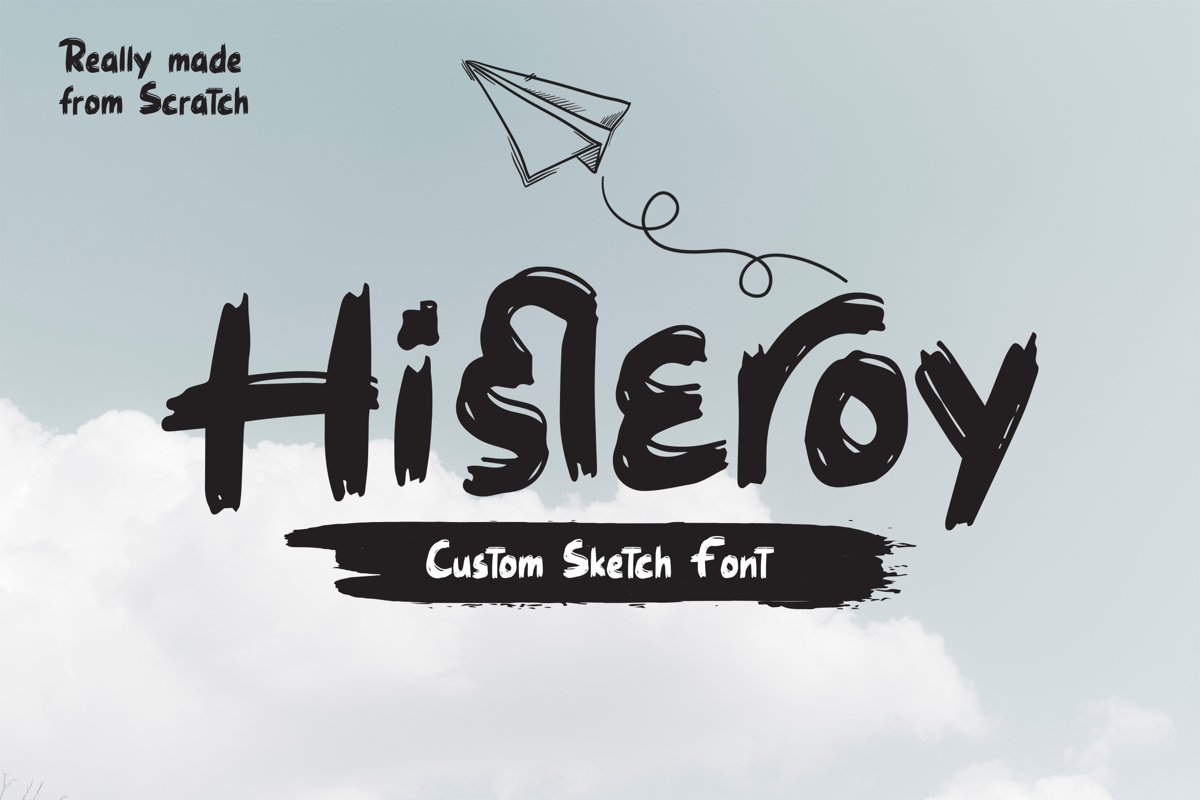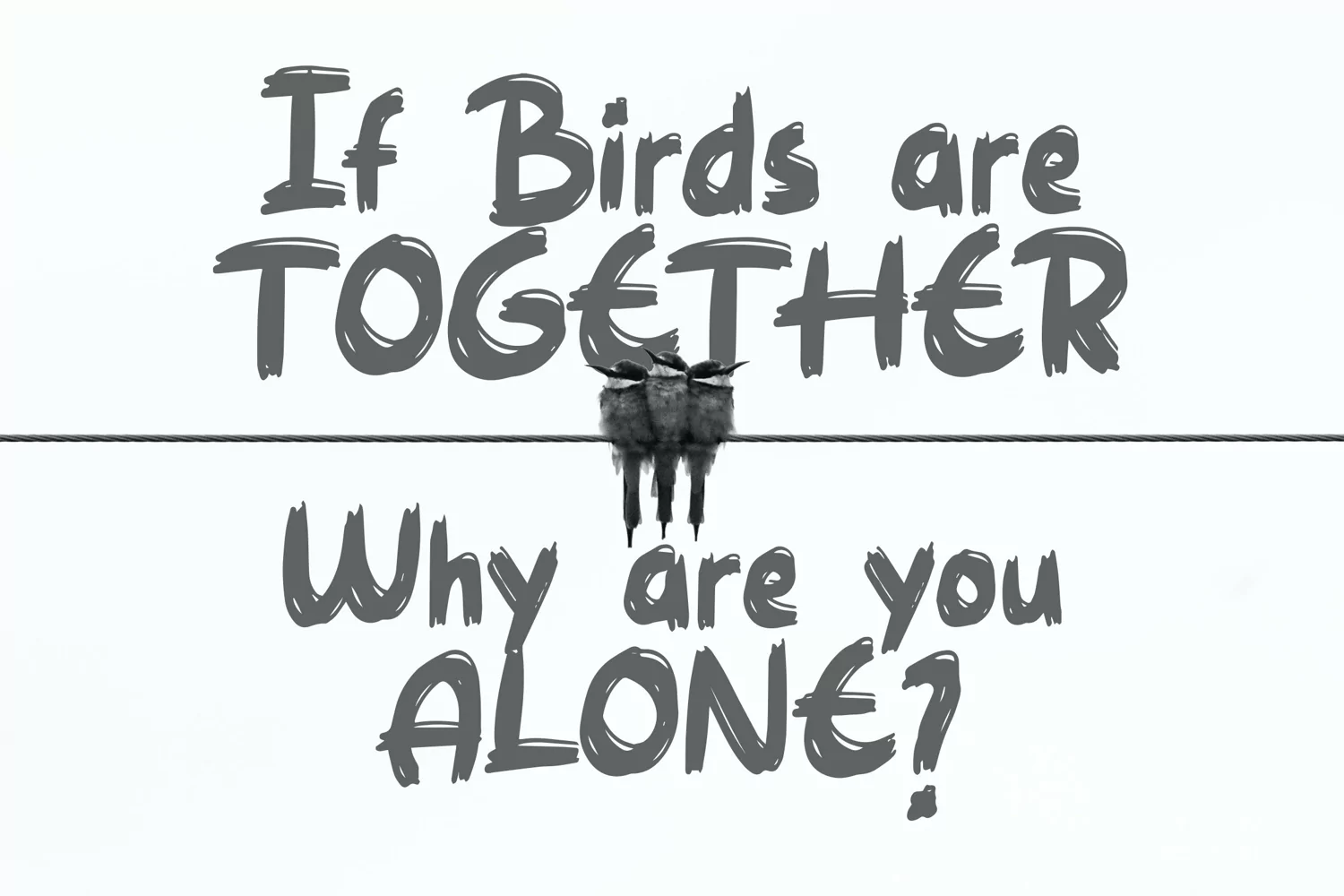
Histeroy - Custom Sketch Font that contain lowercase, uppercase, symbol, and also support multi language. There’s a lot ligatures in this font. This Font also comes with ligatures, alternates and many more. this font suitable for fashion, branding, catalog and other design what you want.
Histeroy